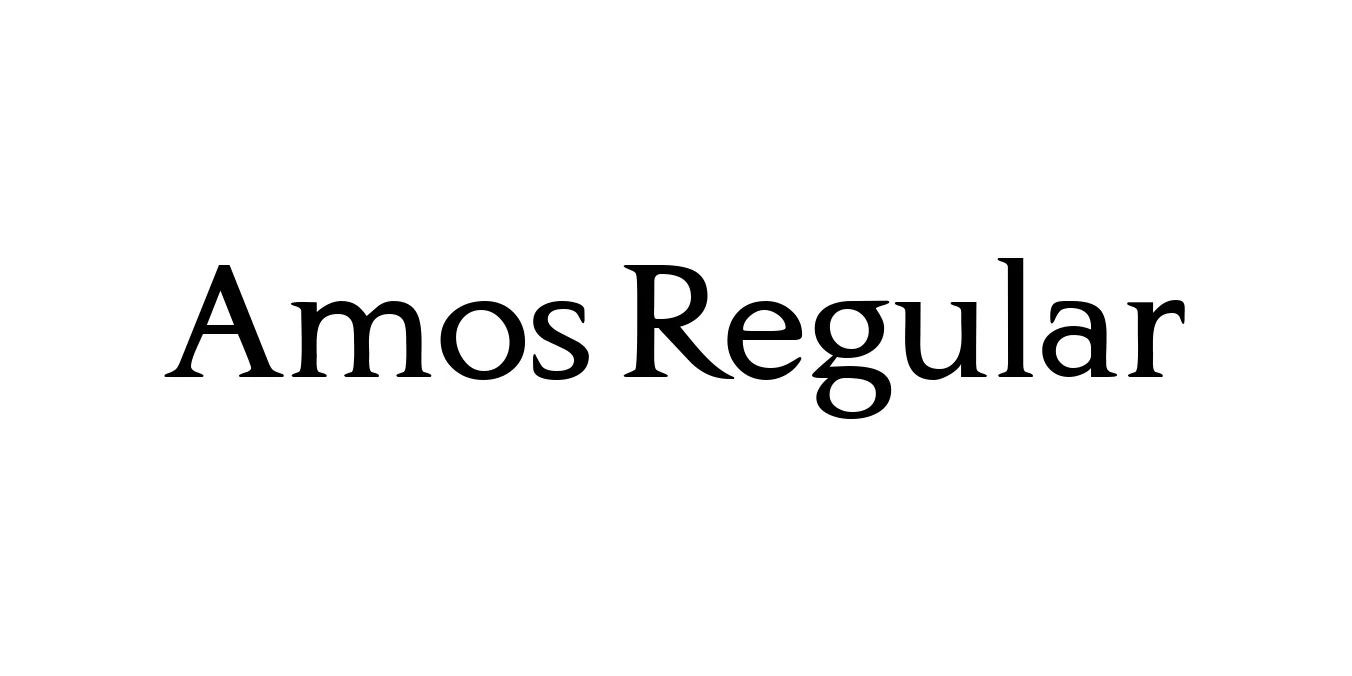
Amos Regular
Designed by Hans-Jürgen Wolf
Amos Regular is a sophisticated typeface that blends classical serif proportions with modern clarity. Designed to capture a balance between tradition and contemporary aesthetics, it features refined stroke contrast and clean terminals. This makes it an ideal choice for designers looking to convey a sense of authority and timeless elegance in their projects without sacrificing modern readability.
The history of the Amos family is rooted in the transition of digital typography towards more versatile editorial faces. Its balanced x-height and generous spacing ensure readability across both print and digital media. Whether used for high-end fashion branding, luxury packaging, or academic publications, Amos Regular remains a reliable and versatile tool for professional visual communication.
Amos Regular Best Uses
Ideal for luxury logo designs and sophisticated corporate identity systems.
Excellent for magazine headings, sub-headers, and long-form body text.
Adds a touch of class to wedding invitations and formal event cards.
Highly effective for clean, high-impact website headers and hero sections.